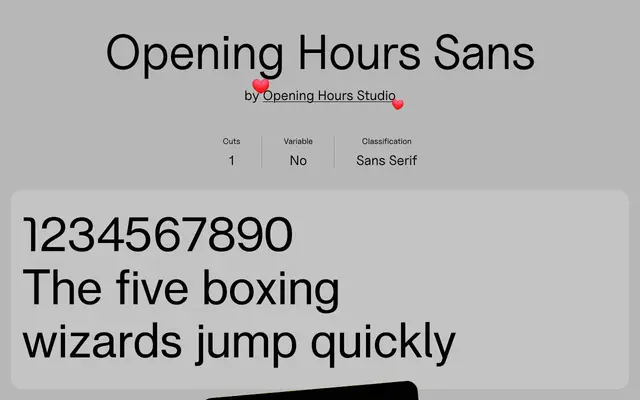
Opening Hours Sans
A single-cut sans-serif from Opening Hours Studio, released under the SIL Open Font License for free commercial and personal use.
A minimal sans-serif offered in one weight with no variable axis or italic companion. Released under the SIL Open Font License 1.1, it permits commercial use, modification and redistribution with conditions. The limited cut count makes it best suited to projects where typographic simplicity is intentional rather than a constraint.
Classified as Sans Serif on the page; without further detail, the name and studio suggest a straightforward grotesque or geometric sans-serif cut.